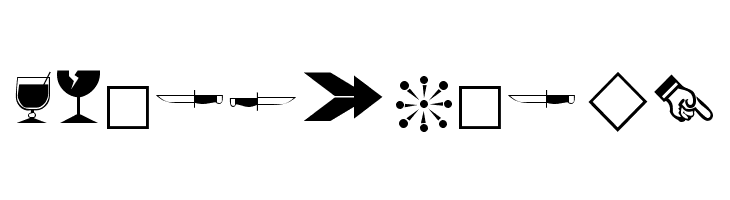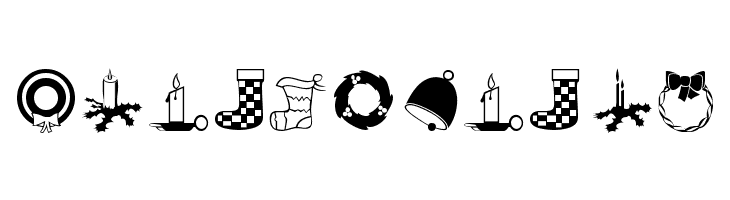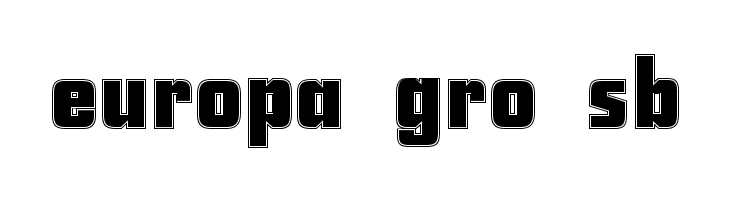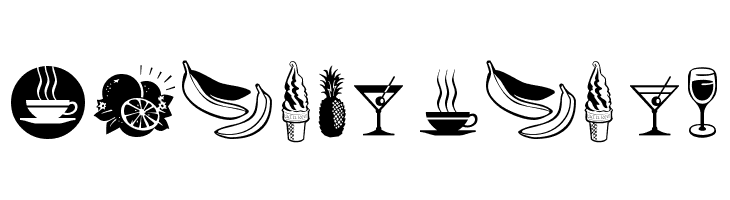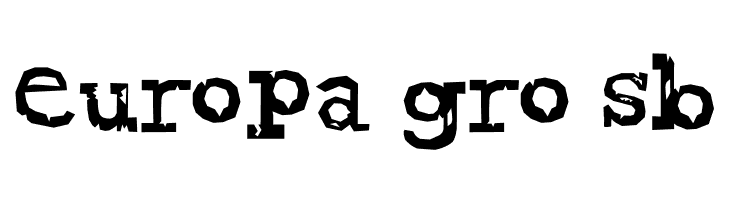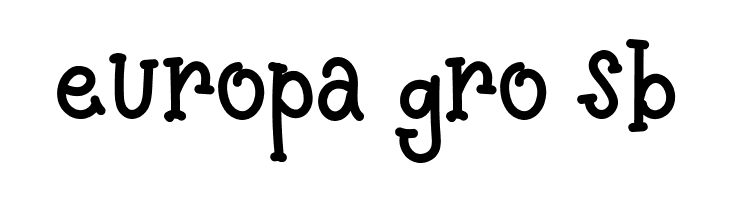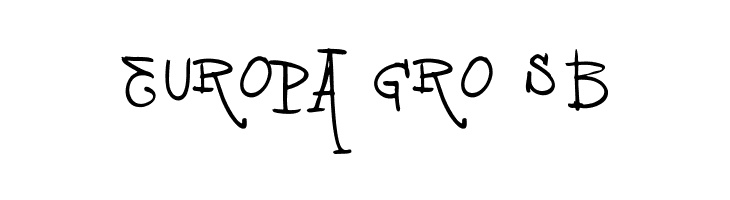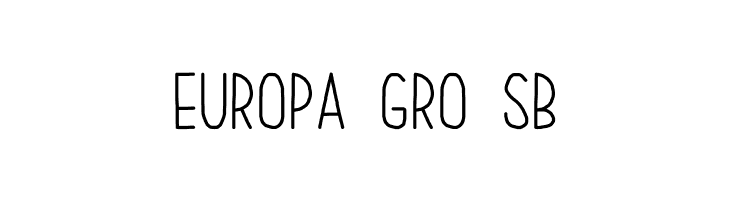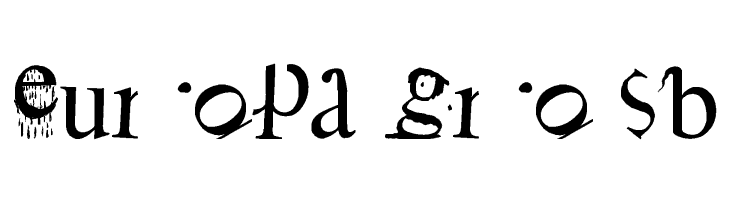
A versatile set of bold, clean dingbat symbols and icons.
A festive collection of holiday-themed dingbats featuring ornaments, gifts, and more.
A bold, outlined font with a strong, three-dimensional appearance.
A playful collection of bold, illustrative dingbats featuring objects and animals.
A versatile set of bold, clear pictograms ideal for signage and instructional use.
A playful, hand-drawn font with a whimsical and friendly style.
A playful handwritten font with tall, narrow letters and a casual style.